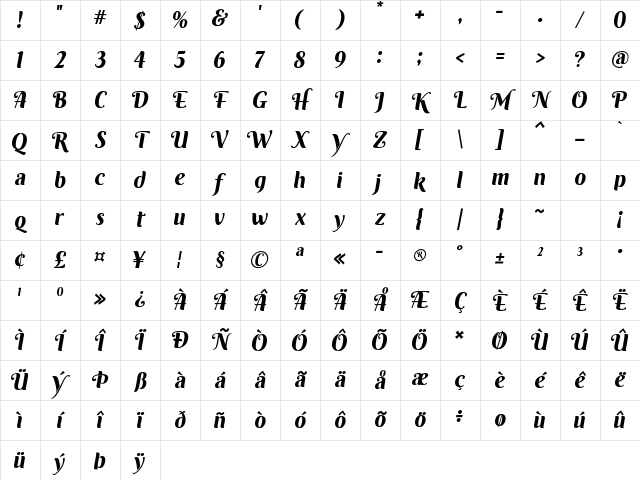
Rosintha Regular Free Font
Rosintha Regular
Designer: Virgiawan Listanto. 2023
Design Context for Rosintha
Rosintha is a composed and adaptable typeface that performs quietly and consistently across a wide range of design contexts.